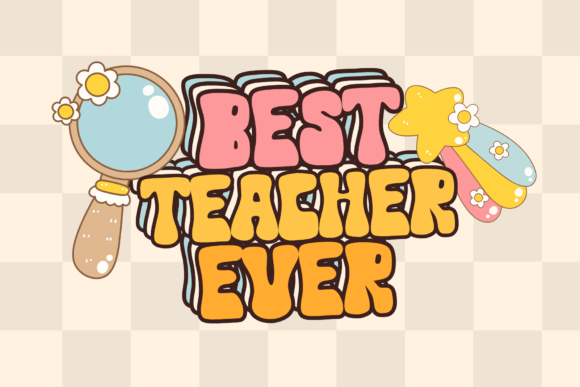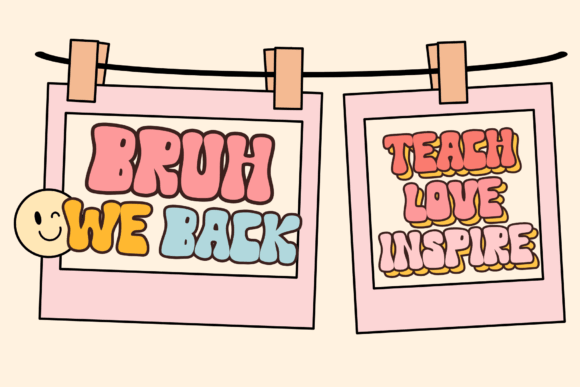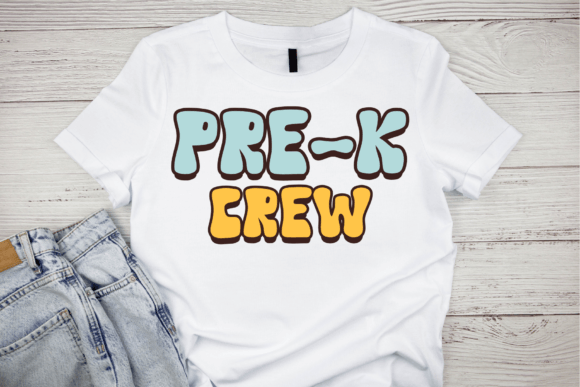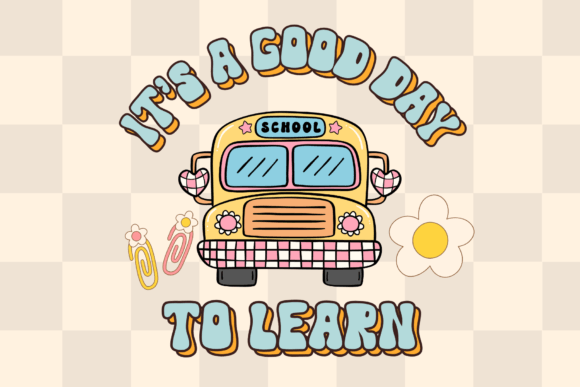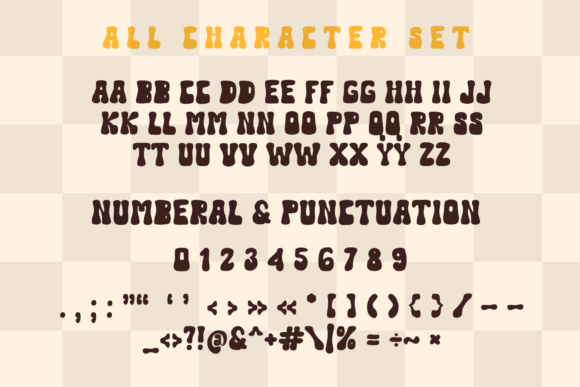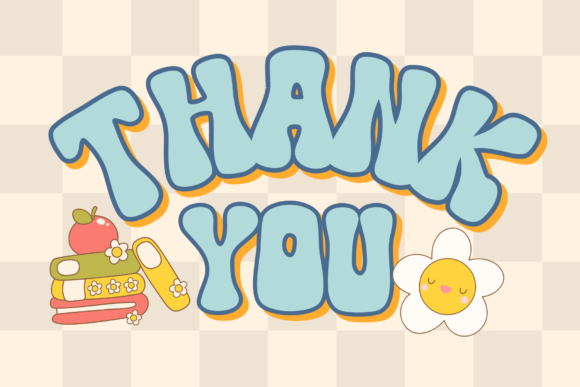
Introduction to Groovy Teacher Font
Experience the allure of nostalgia and funk with Groovy Teacher, a stylishly retro-inspired typeface that captures the essence of the groovy era.
With its playful charm and authenticity, this font breathes new life into your artistic endeavors Perfectly catered for a vast array of projects right from blog posts, personalized brands, captivating advertising, event invitations to daily planners, nostalgic photo albums, and charming home decorations.
Key Features of Groovy Teacher Font